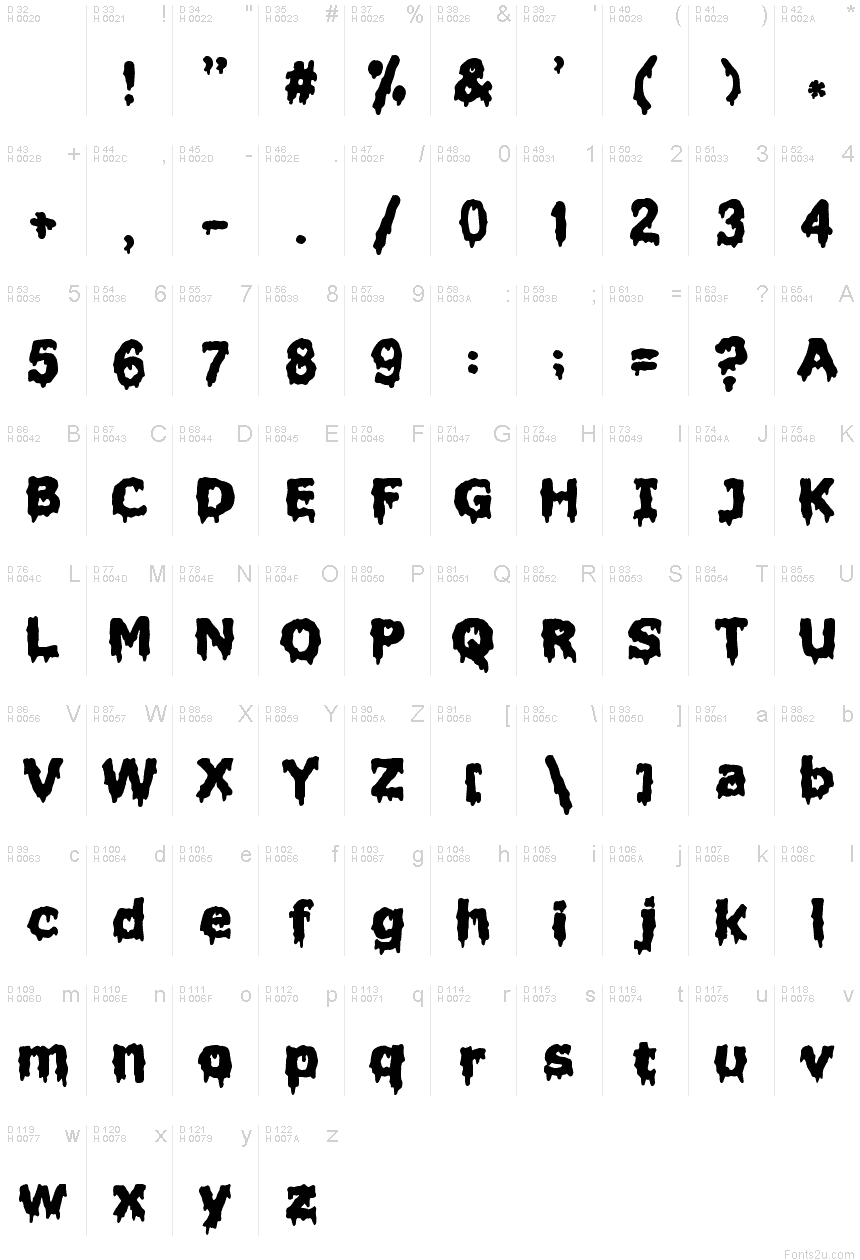
Liquidism part 2
Liquidism part 2 by Jakob Fischer is a free scary display font shaped by thick, drooping forms that make each letter look as if it is slowly melting down the page. That repeated drip pattern gives the lettering a swampy, unstable rhythm, with blunt tops and hanging ends that keep the horror effect consistent across the design.
It makes sense on Halloween party flyers, haunted house posters, horror game titles, spooky packaging, and themed social graphics where the sagging silhouette can do more than plain headline text. Because the drips are structural rather than added decoration, Liquidism part 2 can anchor short words, logos, and section headers without losing its gooey character.